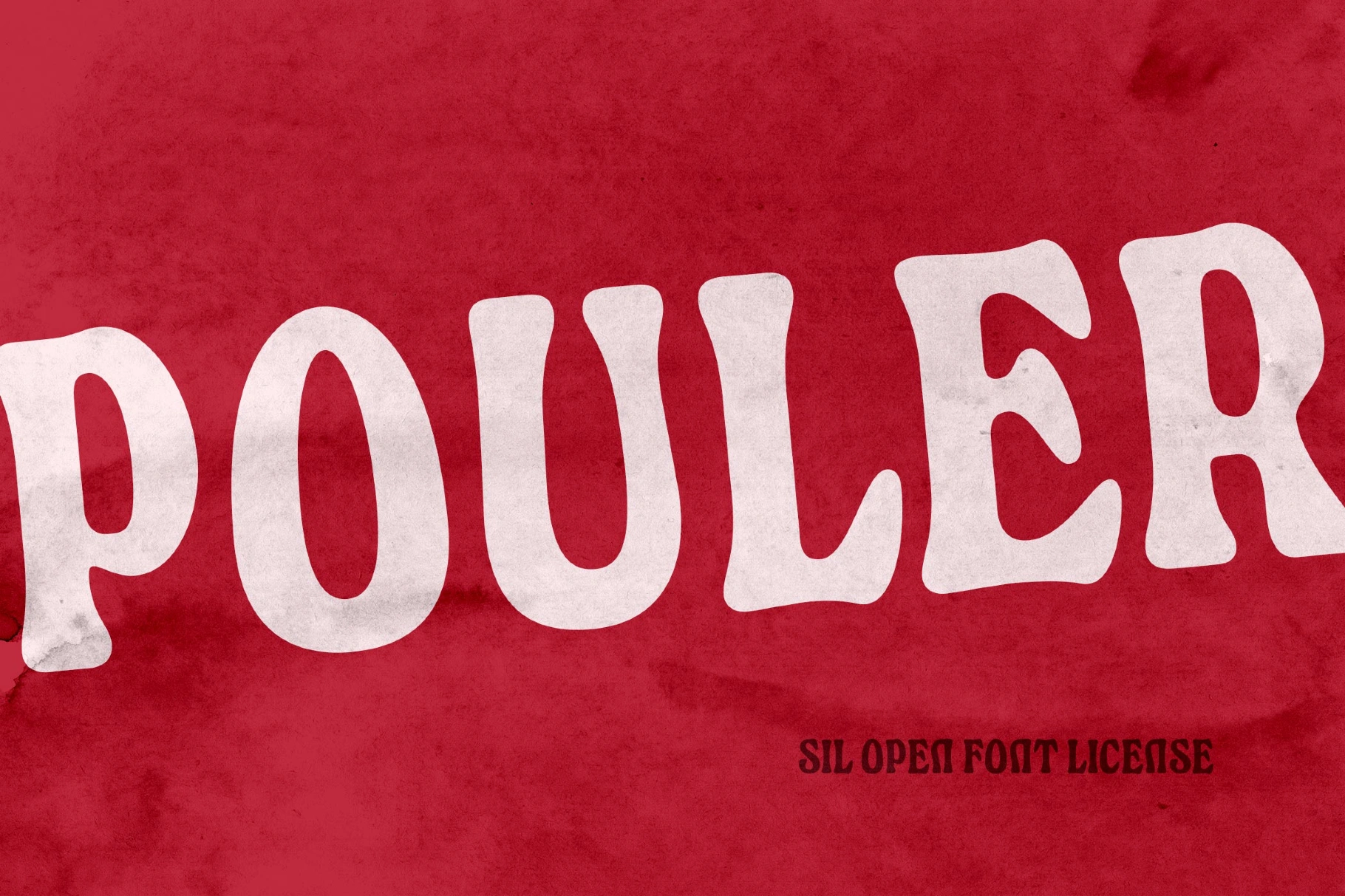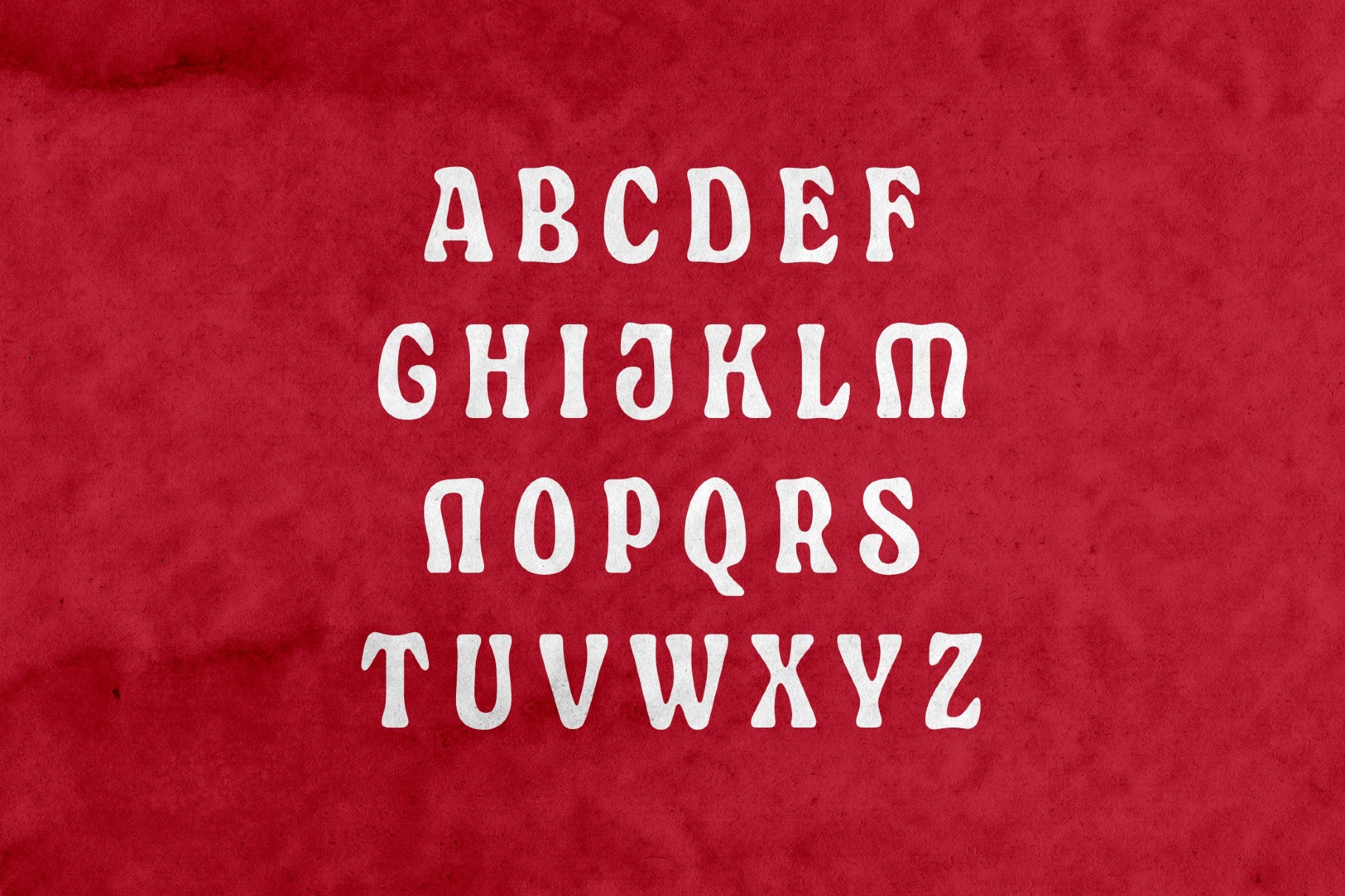
Pouler Font
Pouler
This one is a lovely vacation summer font with a pronounced retro feel. Pouler is a playful all-caps display face with juicy rounded forms and rustic irregularity, drawing on Cooper Black, Windsor Condensed, and the vernacular charm of French village signs and market labels. Use it for packaging, branding, poster headlines, logo work, café menus, editorial openers, and signages.